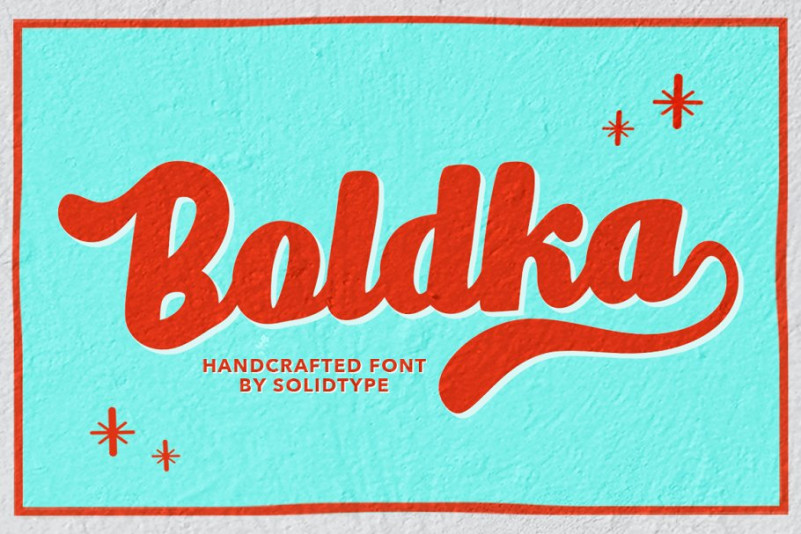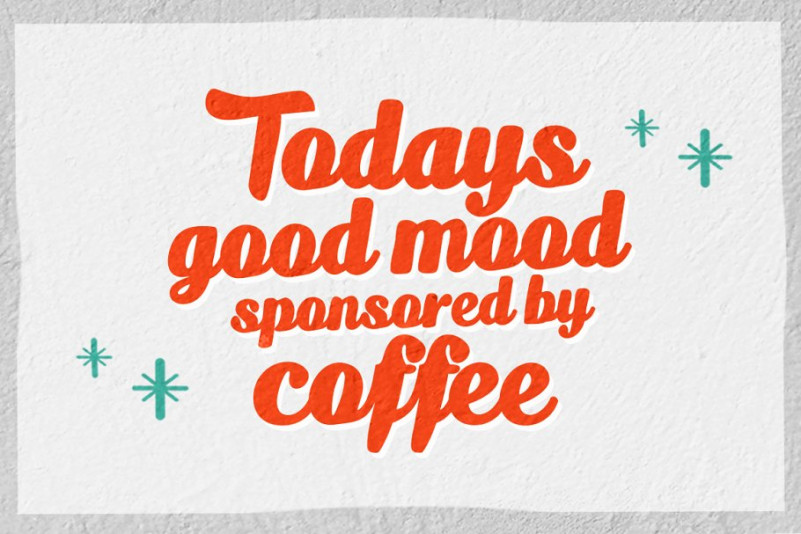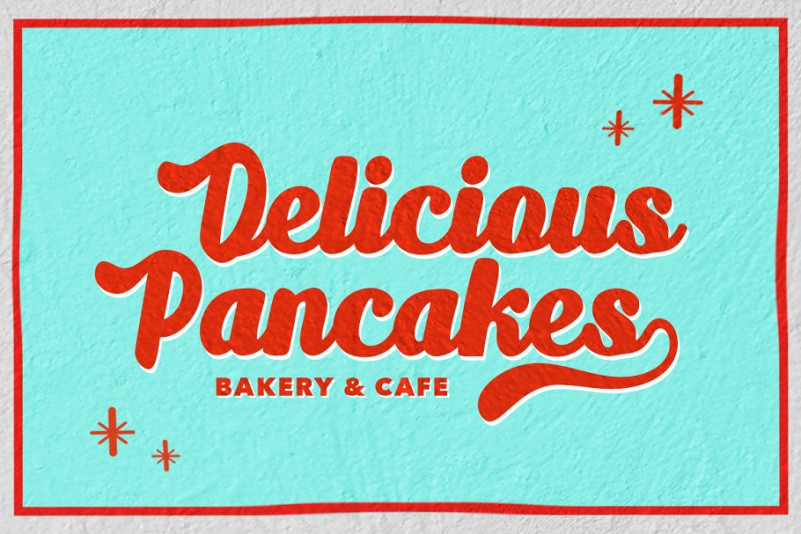
Boldka Font
Boldka Script is a bold connected script. fresh, casual and fun. Great font for creating headlines, logos & posters and more. Features Open type feature, including stylistic alternates ,ligatures and International support for most Western Languages is included.